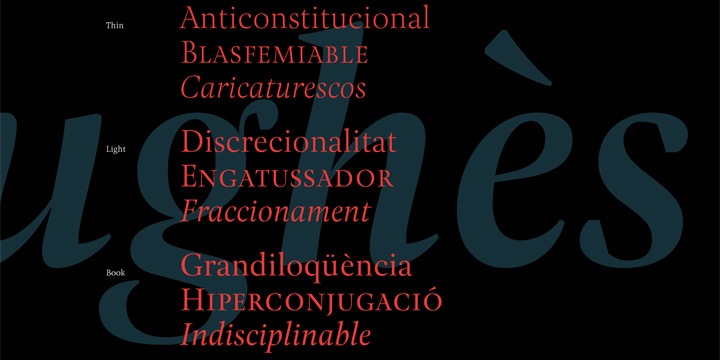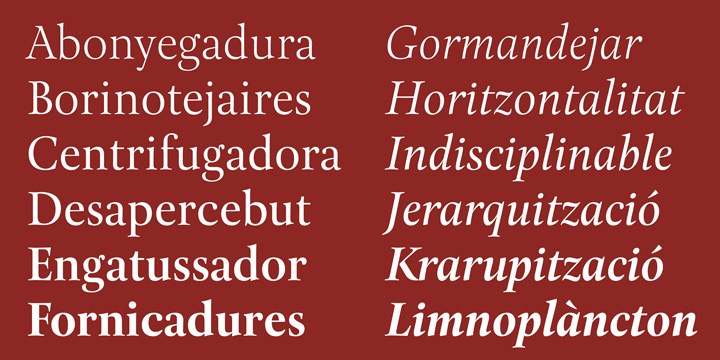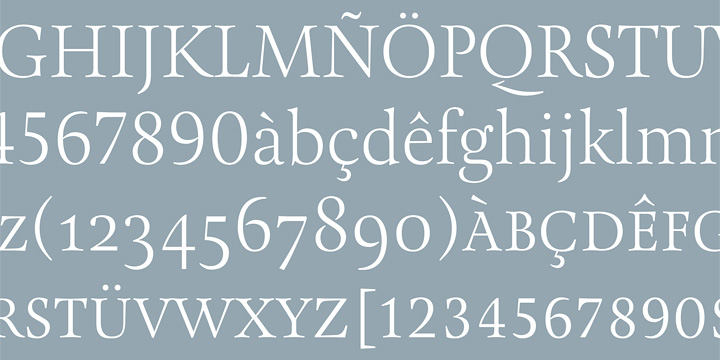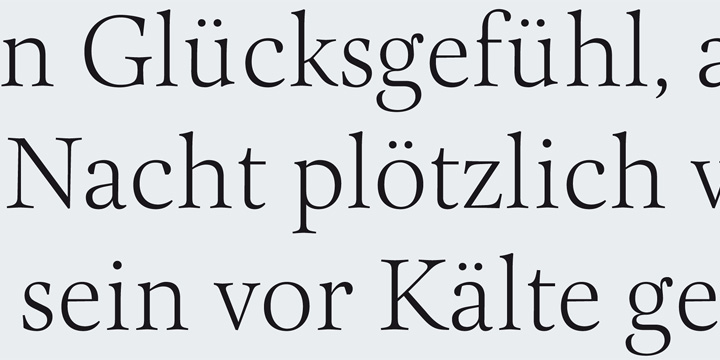
Pona Display is a serif font family. This typeface has twelve styles and was published by Tipografies.
The Pona family of lush curves is completed with the Display version in which letters shine with splendor. Pona Display is an elegant typeface with stunning bodies of remarkable contrast and sophisticated forms.
It is an Opentype family with a very large encoding and Small Caps, Proportional lining figures, Tabular lining figures, Proportional oldstyle figures, Tabular oldstyle figures, Super and subscripts, Fractions, Ordinals features.